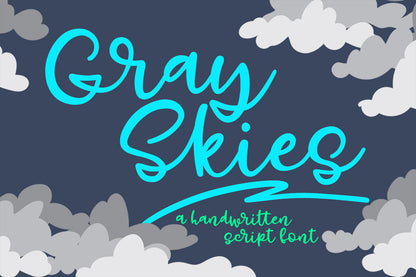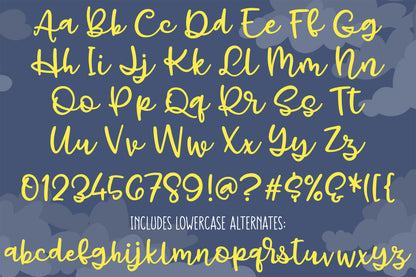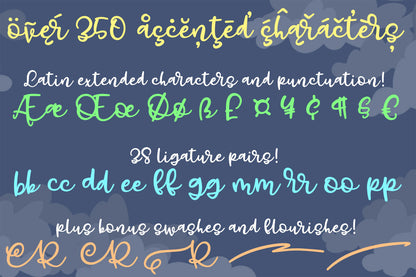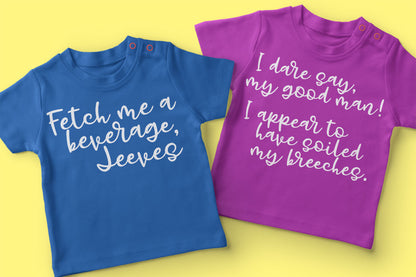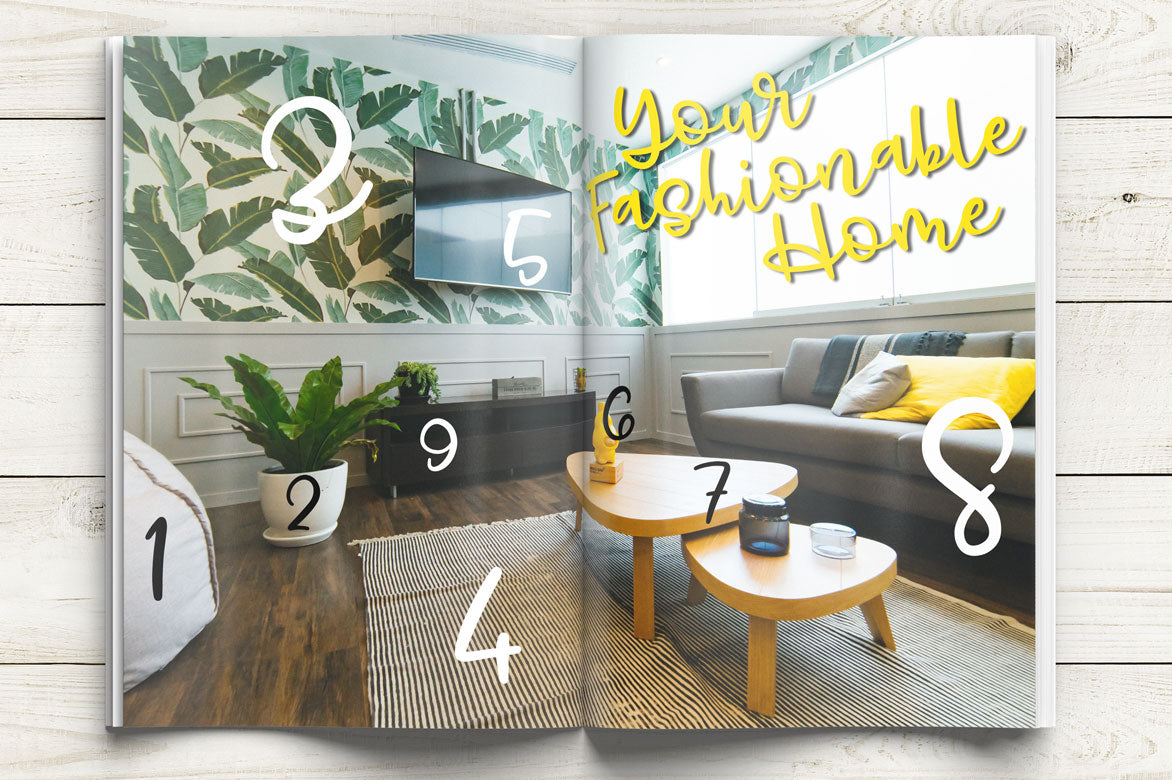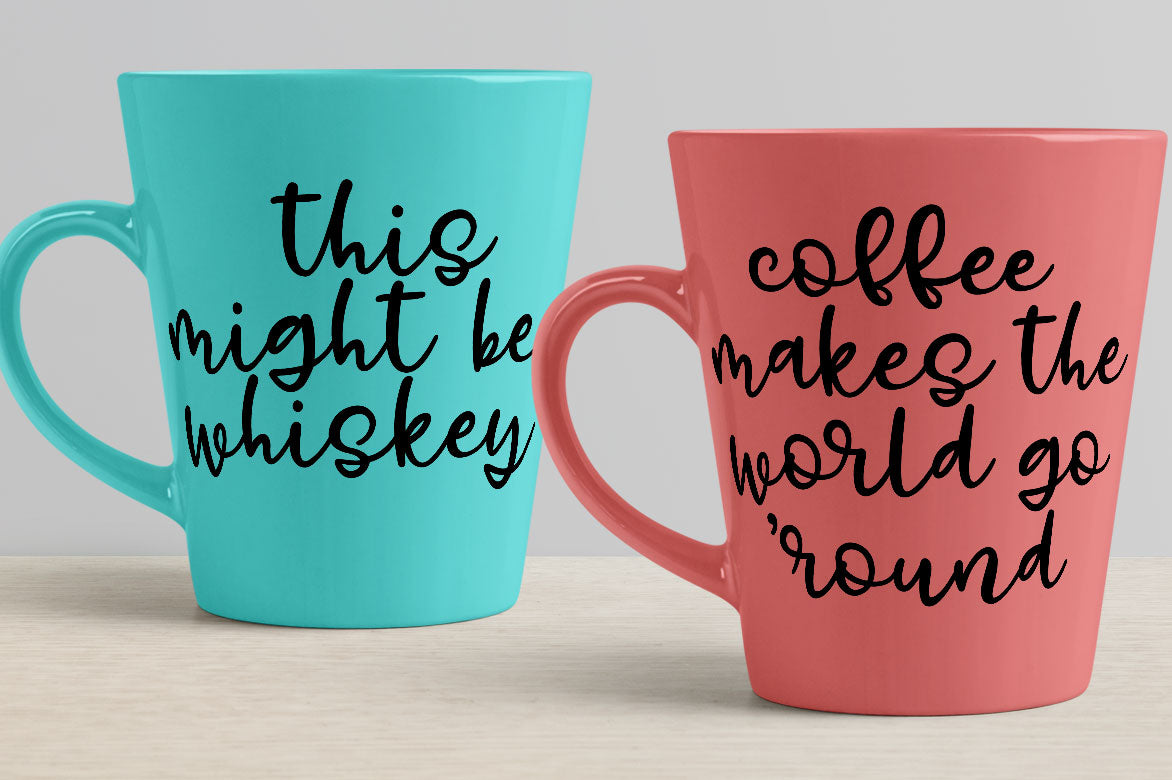
Say hello to Gray Skies, a fun connecting script font! It all started with the letter Y -- instead of a loop at the bottom, I drew a kind of zig-zag smiling-mouth shape. That weird loop ended up inspiring a lot of the other characters, and a new script font was born!
Gray Skies has a ton of features: beyond the usual basics (A–Z, a–z, 0–9, and lots of punctuation), there are over 350 extended Latin characters for language support; stylistic alternates for all lowercase letters; 38 double- and triple-letter ligatures; and 11 fun swashes.